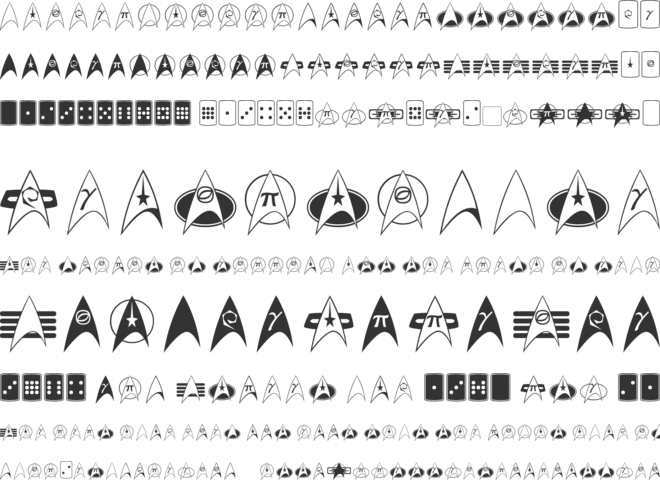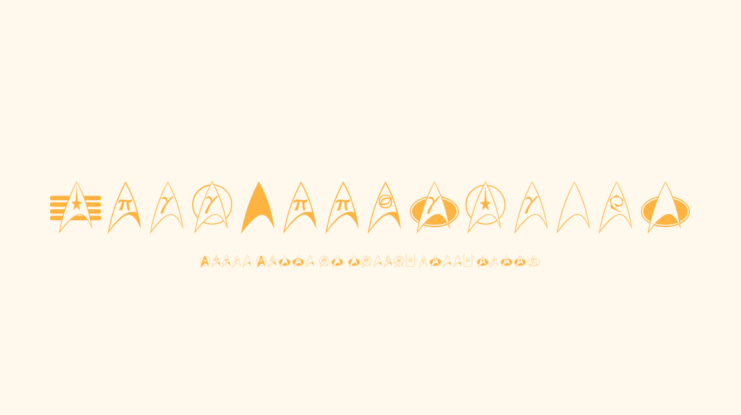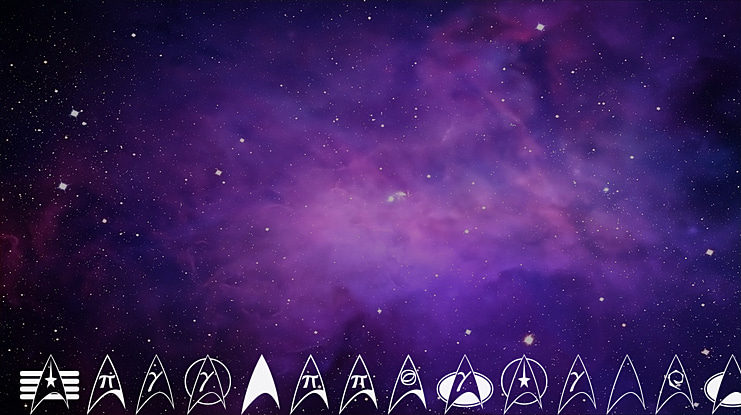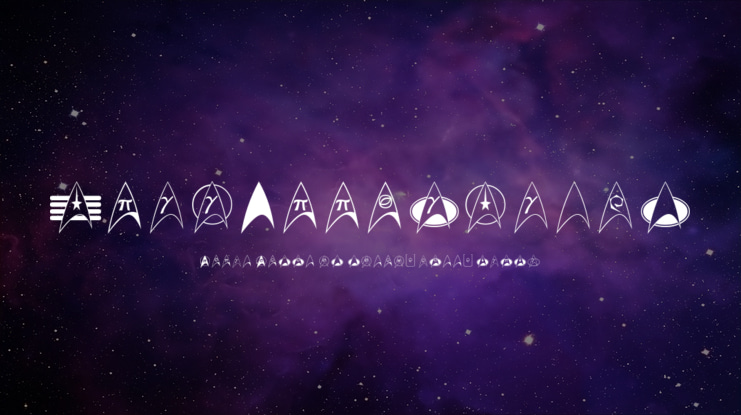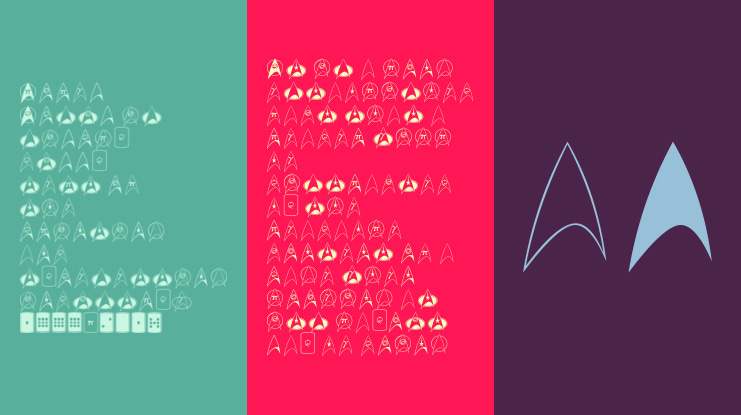
TrekArrowheads Font
Neale Davidson
This symbol font is an extensive set of 'Arrowheads' found in various Star Trek series. Includes plain, command, support, sciences, misc, and general icons for each arrowhead. Also includes 'Enterprise Bookends'.